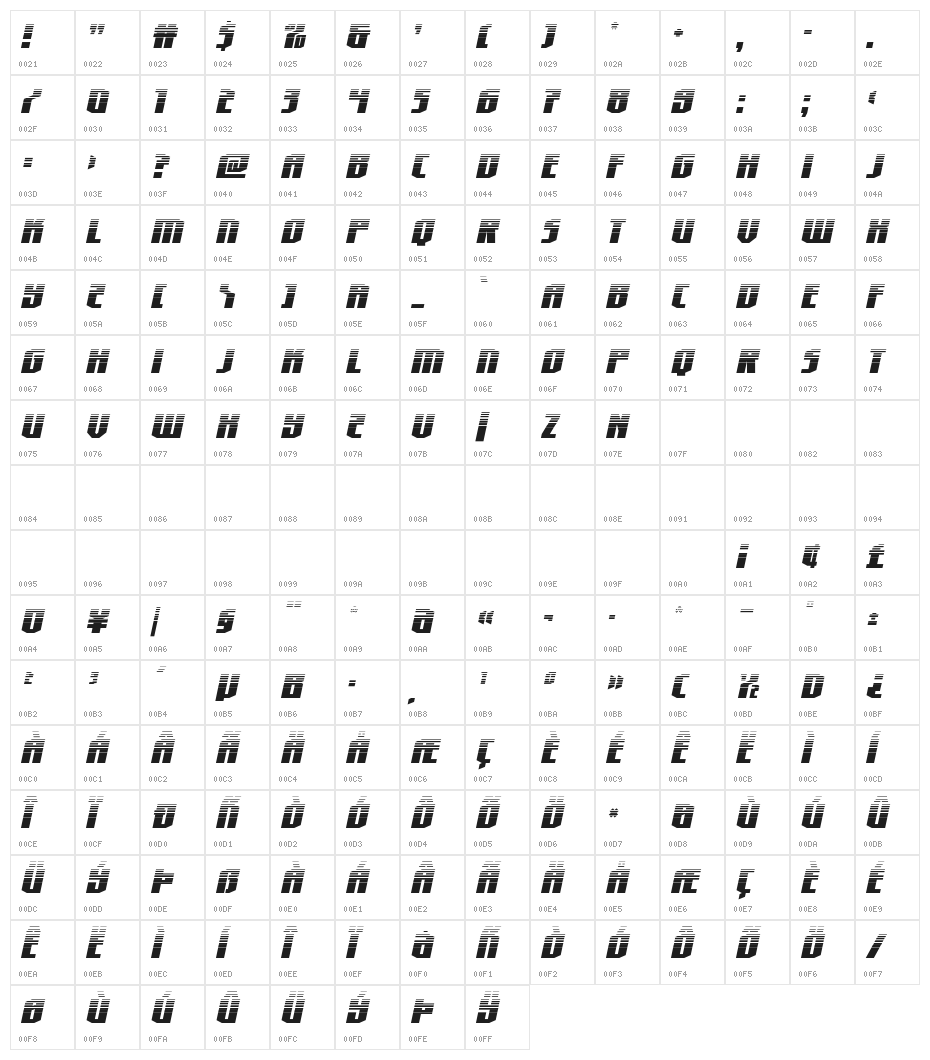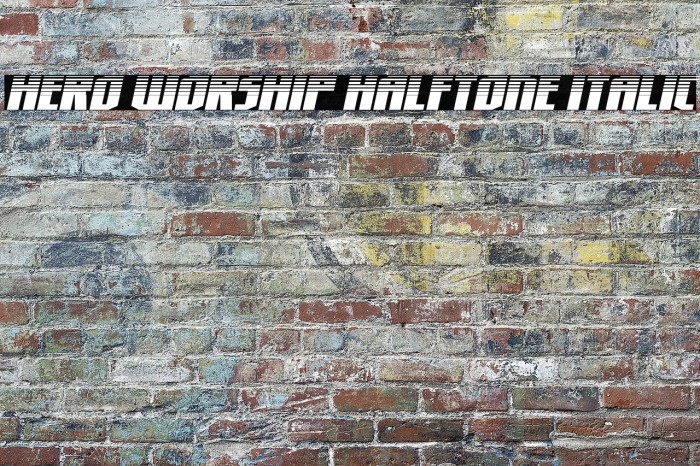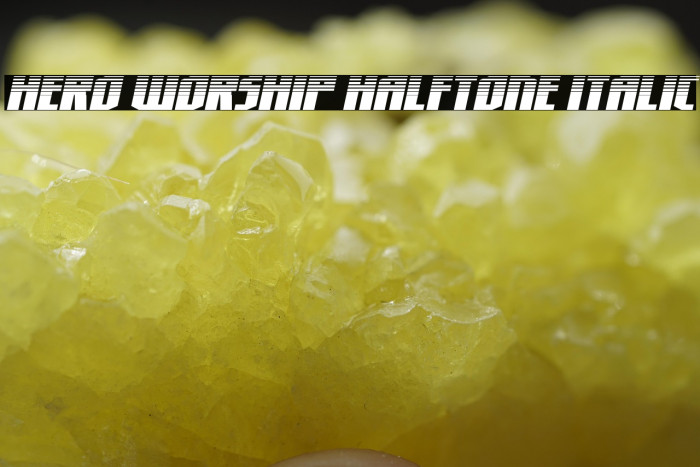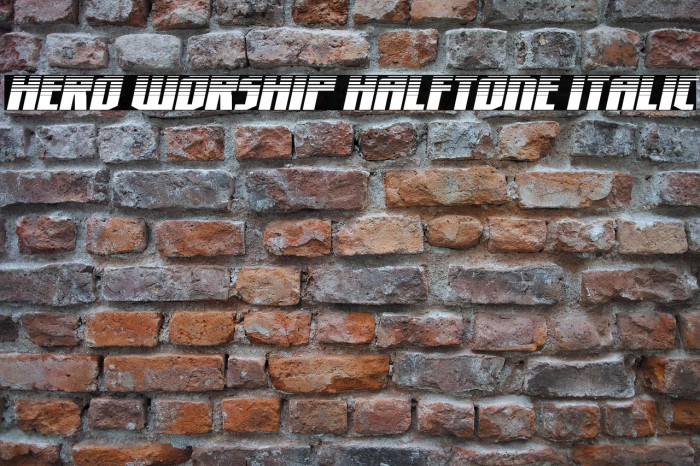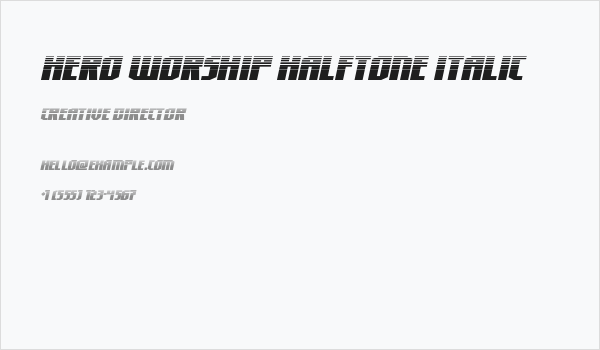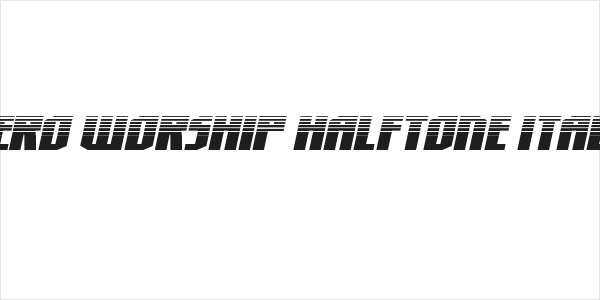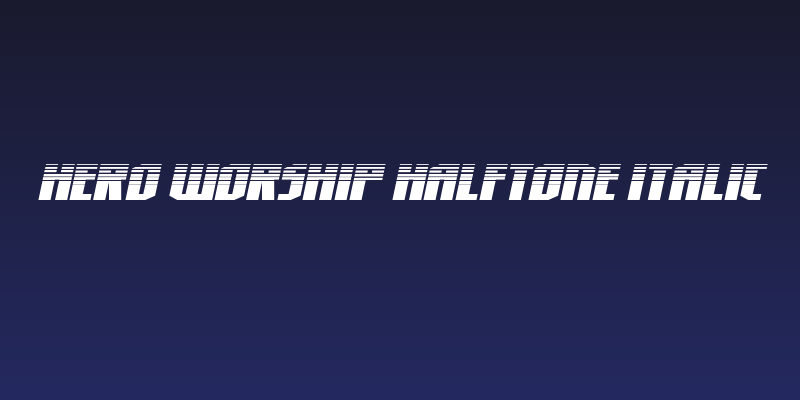
Hero Worship Halftone Italic Font
Hero Worship Halftone Italic Description
This font features a bold, dynamic design with a halftone effect that gives it a modern, edgy appearance. The characters are italicized, adding a sense of motion and energy. Each letter is composed of horizontal lines that create a gradient-like effect, transitioning from solid black at the bottom to lighter at the top. This unique style makes it stand out, perfect for attention-grabbing headlines or logos. The uppercase and lowercase letters maintain a consistent style, with numerals and special characters following the same design principles. The overall look is futuristic and impactful.
| Proposed Projects | Perfect for sports branding, music album covers, futuristic posters, and tech-related logos. |